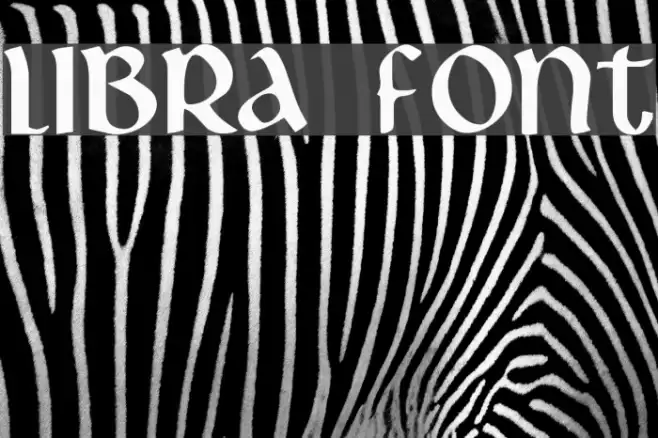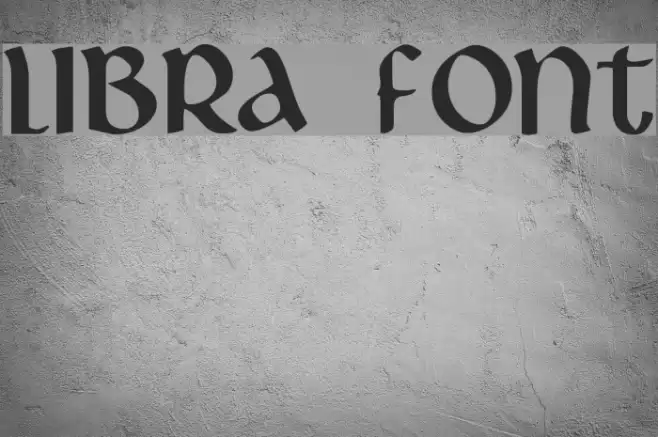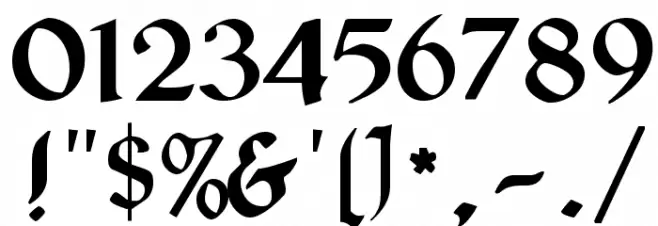
Libra Font
Libra Description
This font features a bold and dynamic style with a calligraphic influence, characterized by its sharp, angular strokes and dramatic flair. The uppercase letters exhibit a strong presence with their thick lines and pointed serifs, while the lowercase letters maintain a consistent flow, adding a touch of elegance. The numerals are equally bold, ensuring legibility and impact. Special characters are crafted with the same attention to detail, making them suitable for various design applications. Overall, the font exudes a sense of tradition and authority, making it ideal for projects that require a touch of sophistication and historical reference.
A bold, calligraphic font with sharp, angular strokes and a traditional flair from Uncategorized fonts.
- Proposed Projects: Ideal for branding, logos, book covers, and any design requiring a classic, authoritative look.
- Overall Style: Classic
- Use Case: Logos, Headlines, Book covers